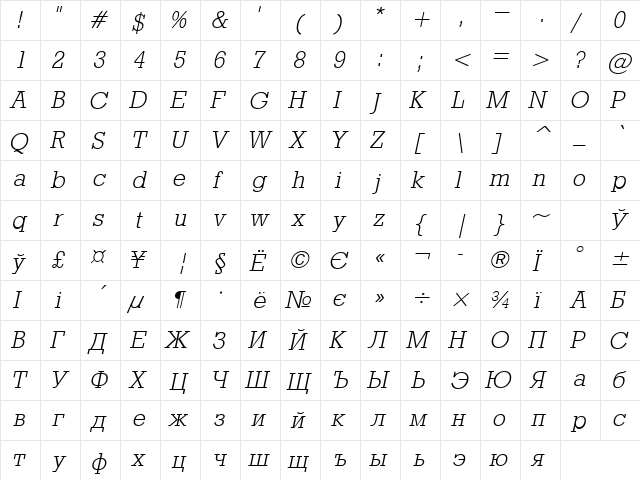
RodeoLight Italic
Design Context for RodeoLight Typeface
RodeoLight takes a measured approach to typography — its balanced proportions and neutral character make it a reliable workhorse for both digital and print work. The slanted form adds forward momentum and visual energy. Its slender proportions lend an understated elegance to any composition.
Pro Tip: Use RodeoLight for emphasis, pull quotes, and subheadings where its slanted energy can add rhythm to the layout.